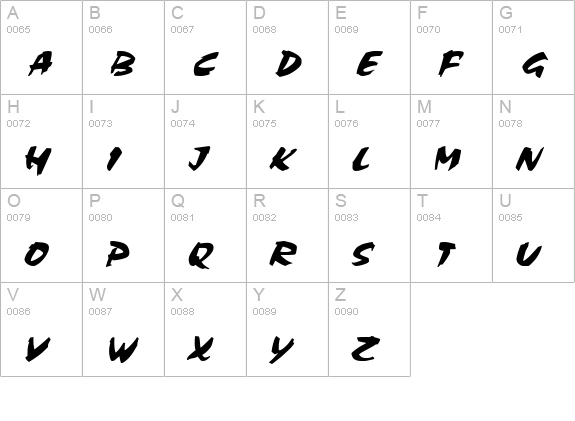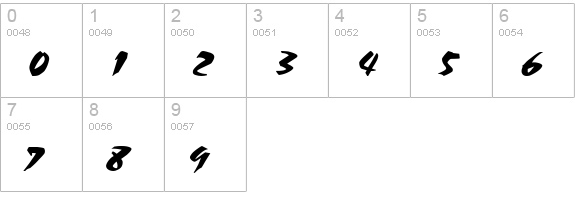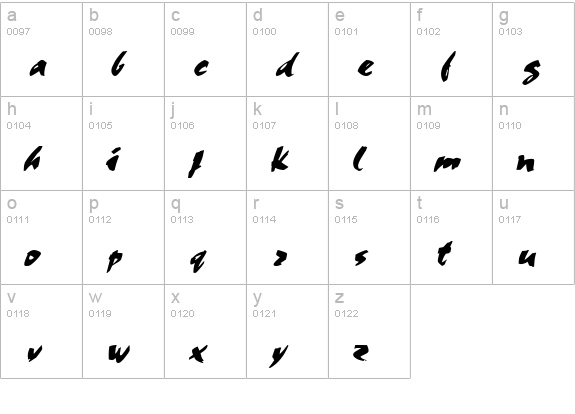
Cocoa Wide Italic Font Details
Cocoa Wide Italic is a distinctive, extended-width, italic variant in the Cocoa typeface family \xE2\x80\x94 well suited to design and typography projects.
Introducing Cocoa Wide Italic font, a stylish and modern typeface perfect for adding a touch of elegance to your designs. This font features a sleek and wide italic style that adds a unique flair to any project. The Cocoa Wide Italic font is a versatile choice for branding, logos, posters, and more. Best of all, this font is available for free download at FontsMarket.com. Don't miss out on the opportunity to enhance your designs with this beautiful and contemporary typeface. Add a touch of sophistication to your projects with Cocoa Wide Italic font today!